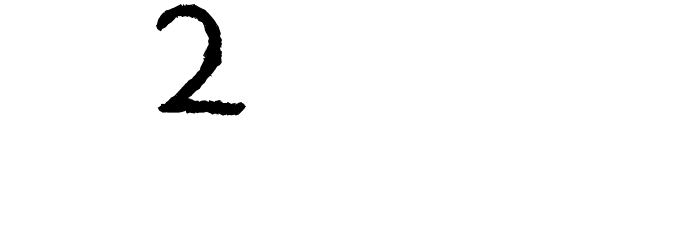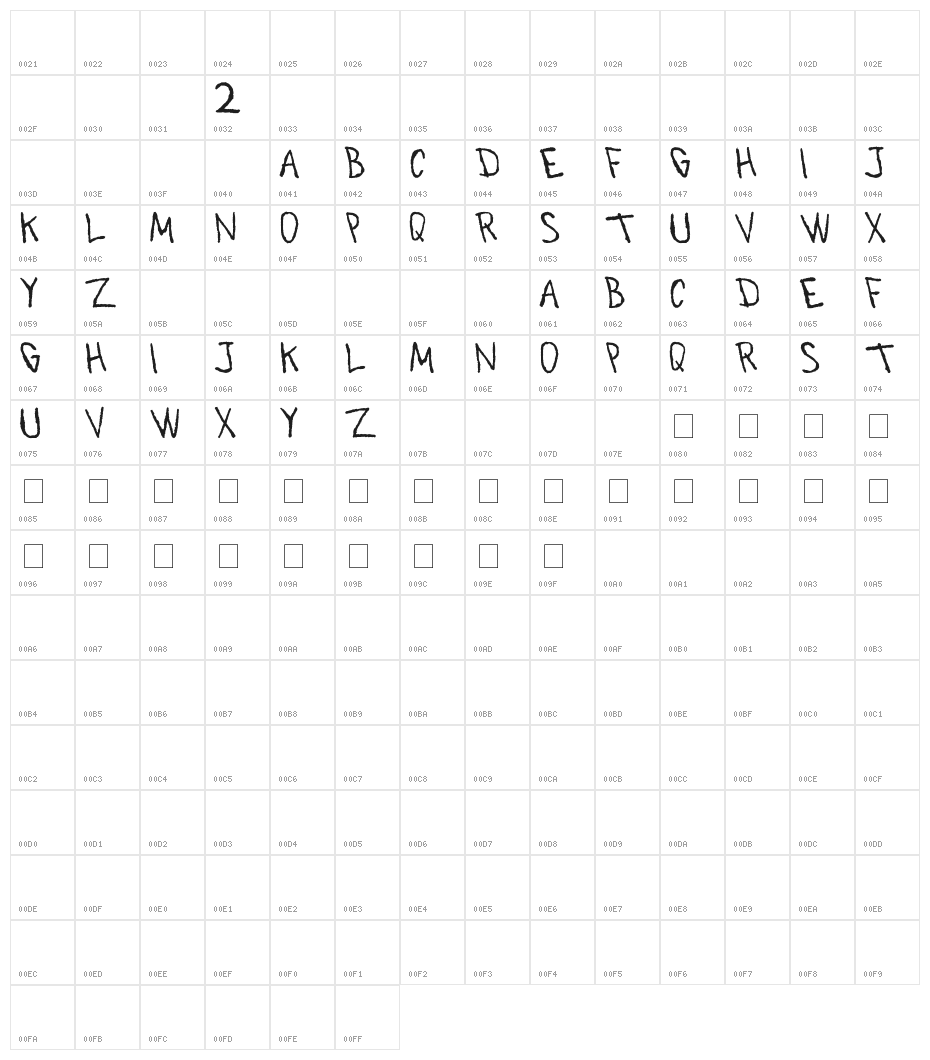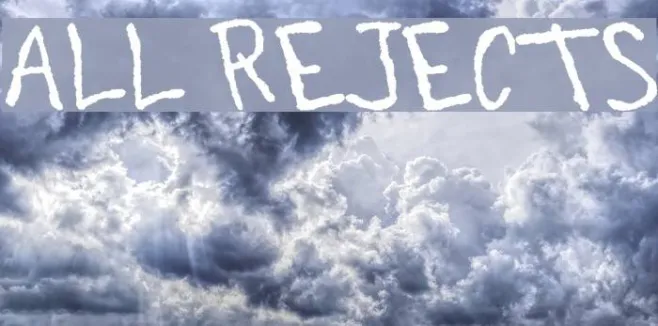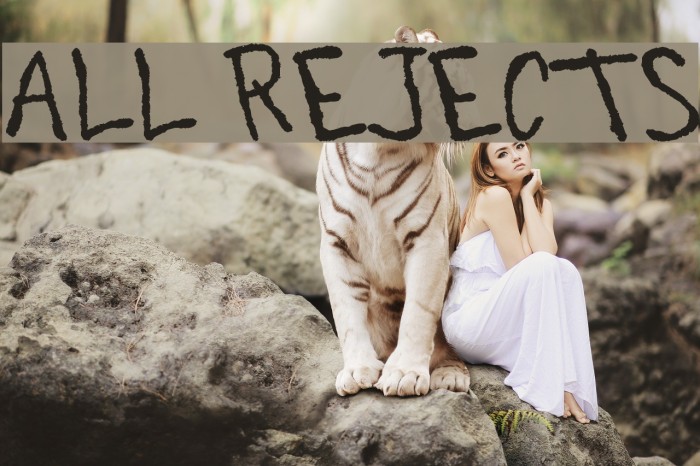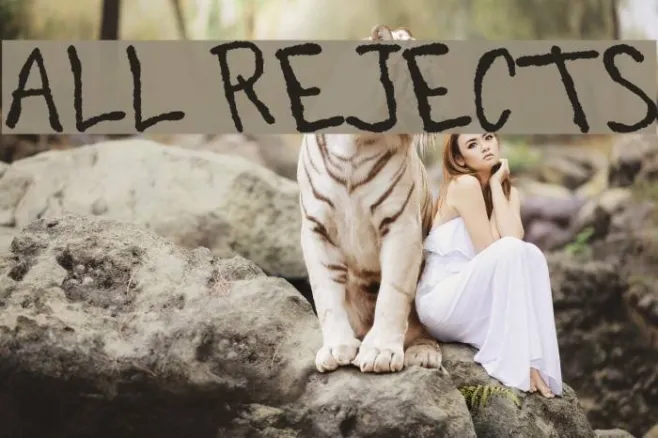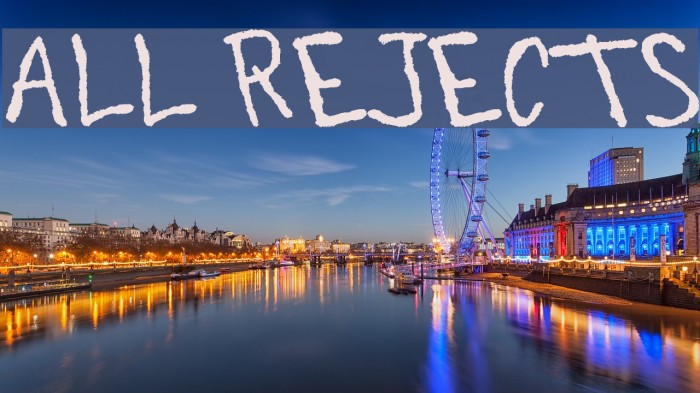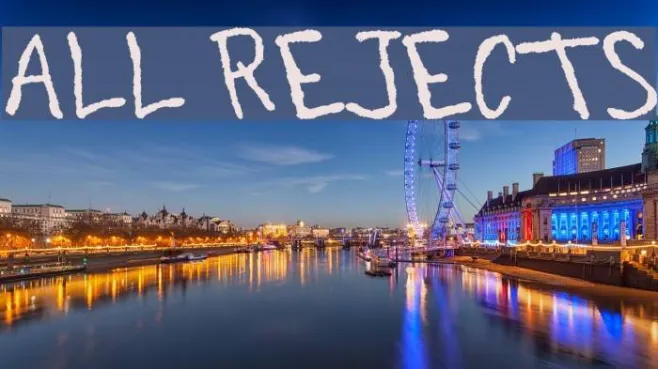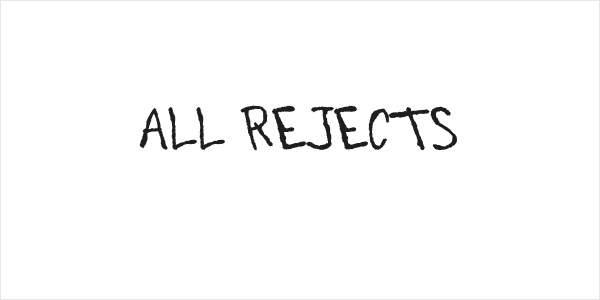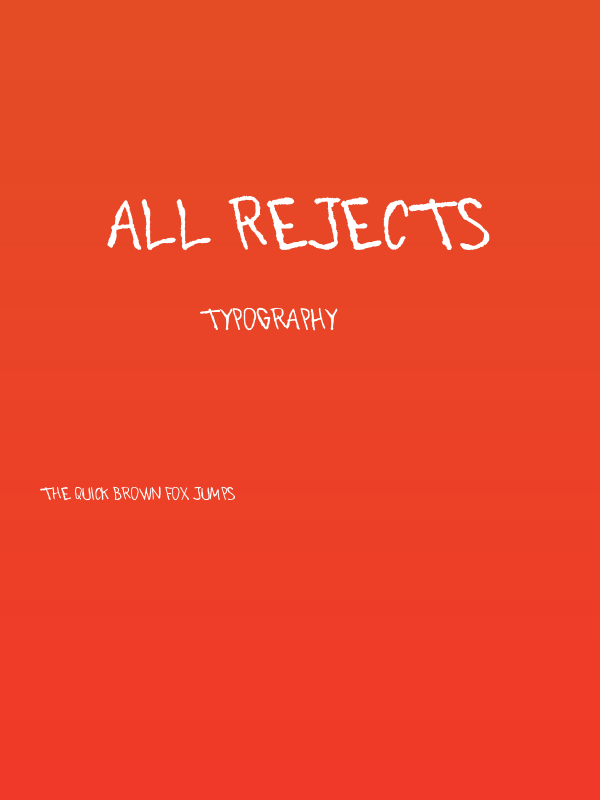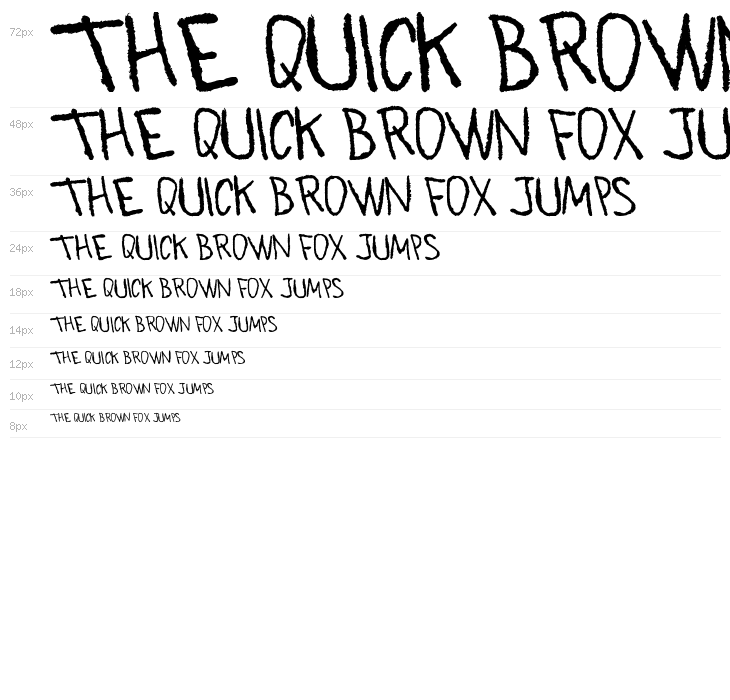
All Rejects Font
All Rejects Description
This font features a rough, hand-drawn appearance with irregular strokes and a casual, informal style. The characters are slightly uneven, giving it a playful and organic feel. The uppercase letters are bold and prominent, while the lowercase letters maintain the same rough texture. The overall look is reminiscent of chalk or crayon, adding a touch of whimsy and creativity. The font lacks uniformity, which enhances its charm and makes it suitable for projects that require a personal, handmade touch.
| Proposed Projects | Ideal for children's book covers, creative posters, casual invitations, and DIY craft projects. |